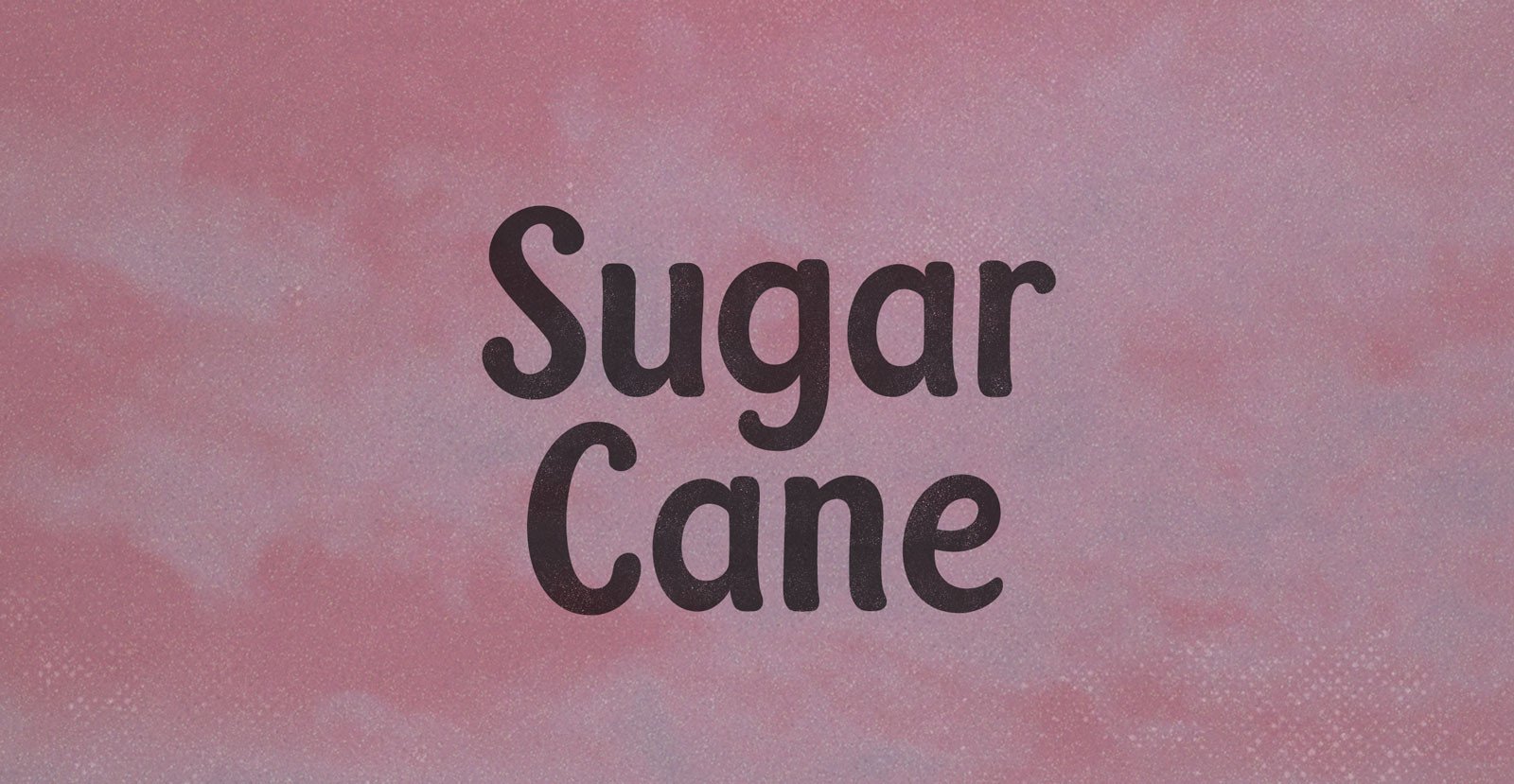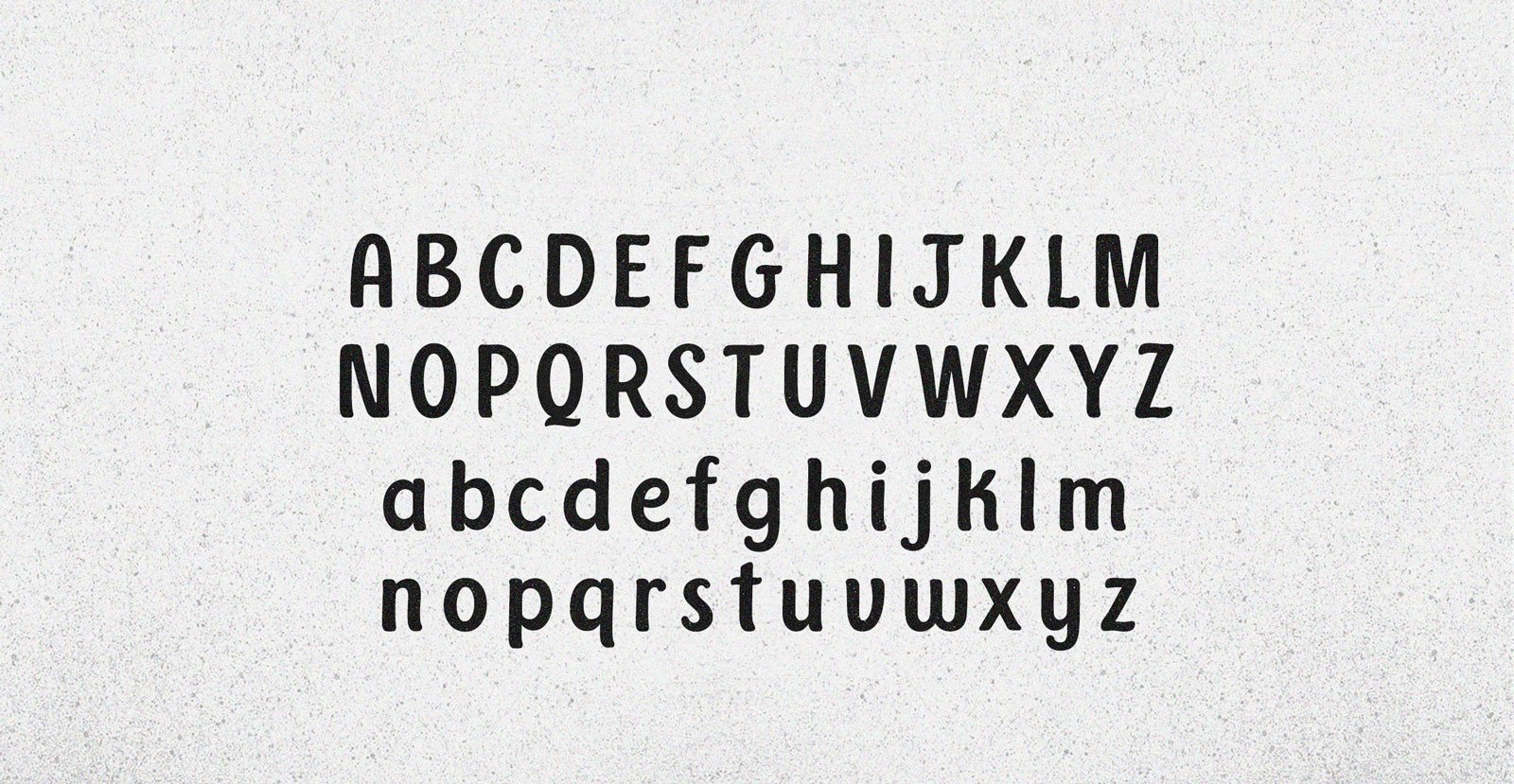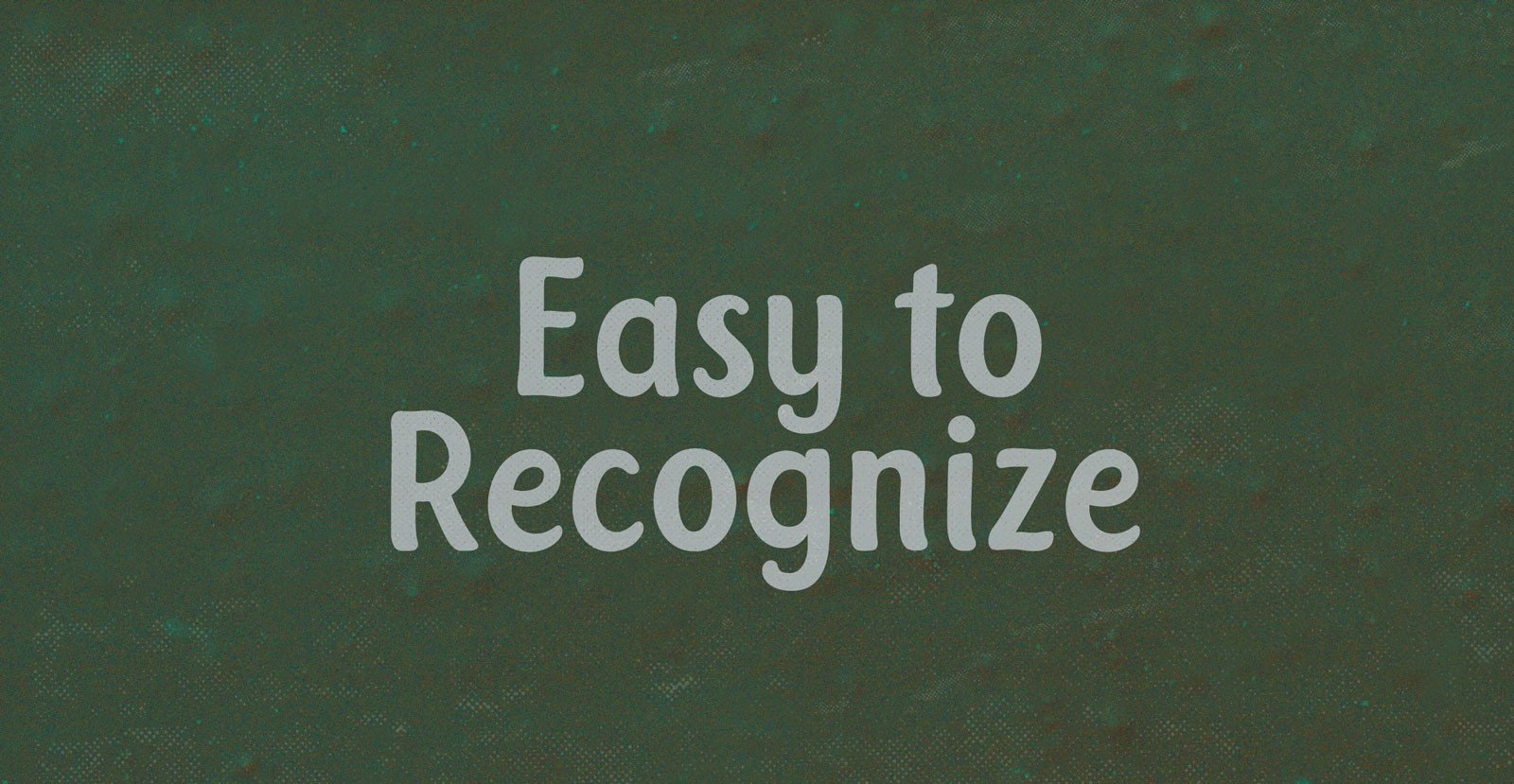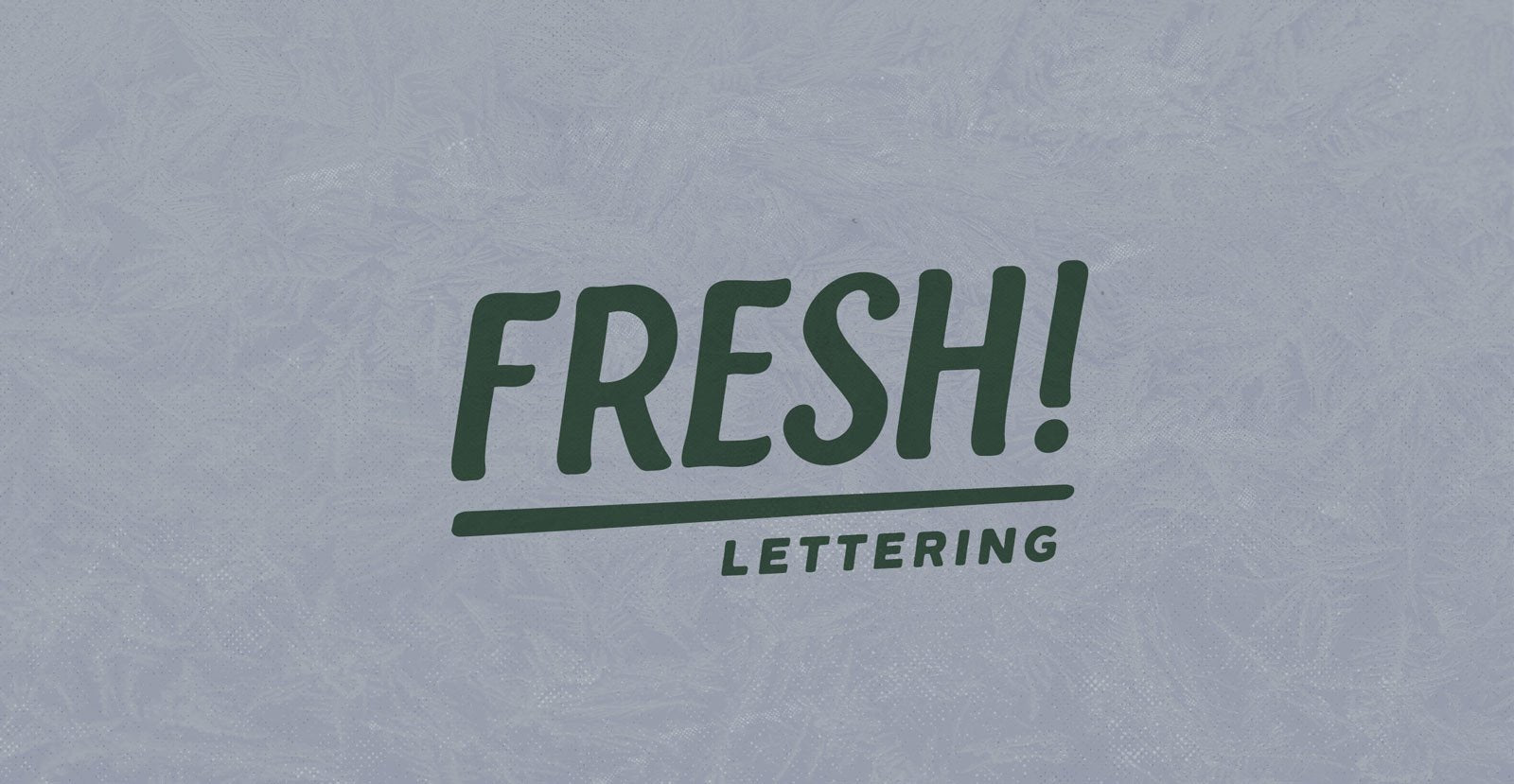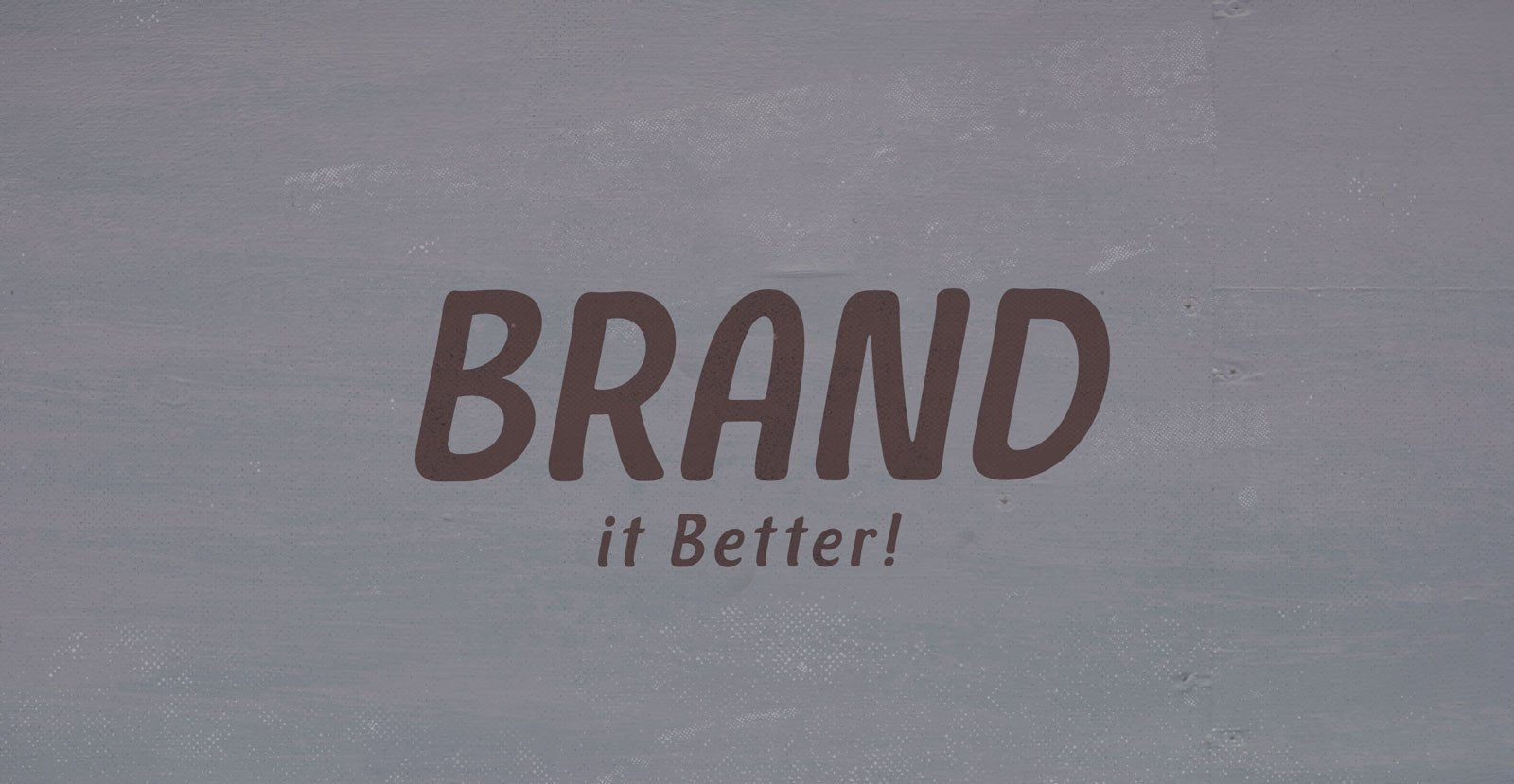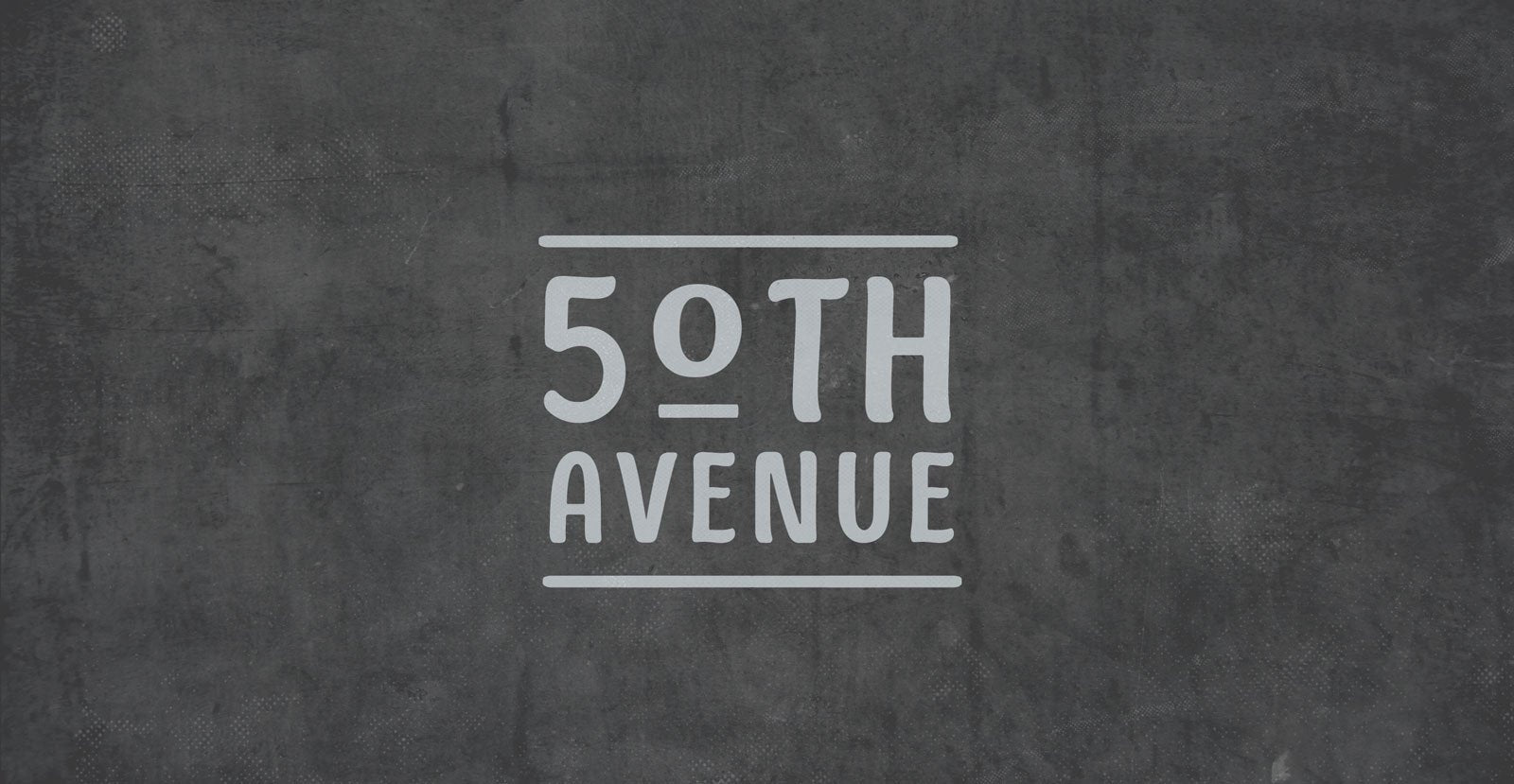
Sugar Cane
Handwritten Sans Serif Font
Machetes by the millions, cutting Sugar Cane like straw, overgrown in the tropical sun. La Gran Zafra: a whole country stacking sticky sticks in their GDP tally, mobilized behind a ten million ton harvest.